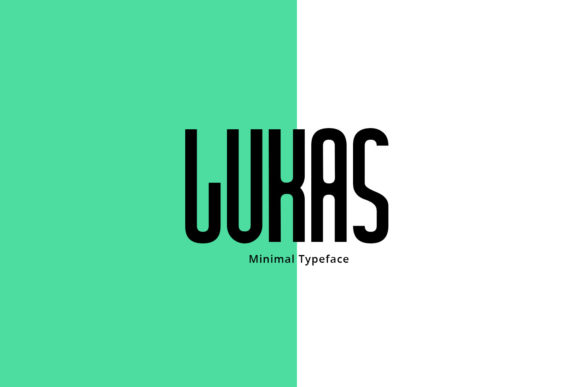
Prepare to be mesmerized by Lucas Font, the epitome of digital display mastery crafted by the ingenious minds at Design Stag. This captivating font family exudes a bold and assertive spirit, ready to elevate your creations to new heights.
Lucas Font is an artistic masterpiece that seamlessly blends modern aesthetics with timeless elegance. Its meticulously crafted characters dance across the digital canvas, creating a captivating visual symphony that commands attention. Each stroke and curve is a testament to the font's unwavering commitment to excellence.
Unleash your imagination and let Lucas Font guide you through a world of endless possibilities. Whether you're crafting eye-catching headlines, unforgettable logos, or captivating social media posts, this font will add an instant touch of sophistication to your designs.
With its versatility, Lucas Font effortlessly adapts to a myriad of creative endeavors. From sleek and contemporary websites to captivating marketing materials, this font has the power to transform your vision into a reality. Its bold presence ensures maximum impact, while its inherent elegance adds a touch of refinement to any project.
Indulge in the beauty of Lucas Font and witness the transformative power it holds. Let its bold characters captivate your audience and leave an unforgettable impression. Download Lucas Font today and embark on a journey of digital brilliance.